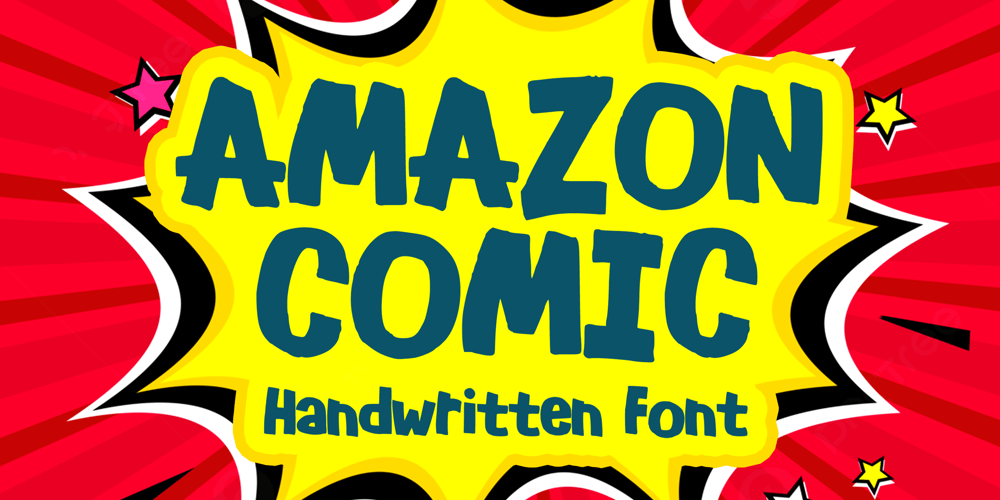
Amazon Comic Font Family was designed by Gabriel Valentinus and published by Mvmet. Amazon Comic contains 1 styles and family package options. Amazon Comic is a cool comic-style display font. You can use it for anything ranging from t-shirts, kids’ book designs, and greeting cards to stickers and posters, or anything that needs a casual touch. Fall in love with its incredibly versatile style, and use it to create lovely designs!